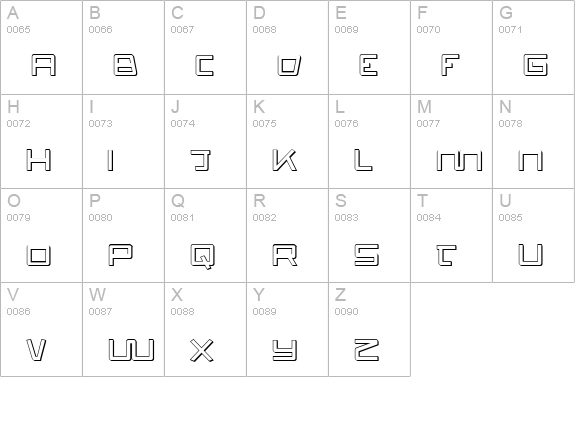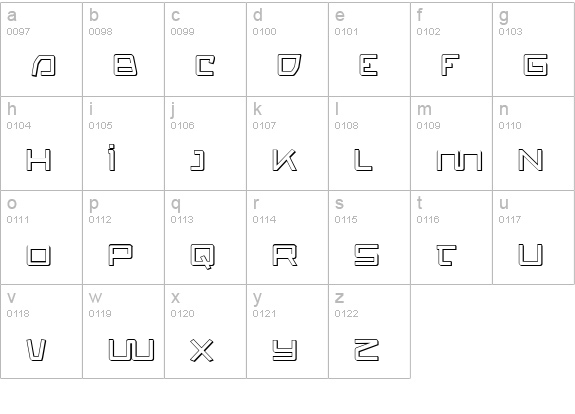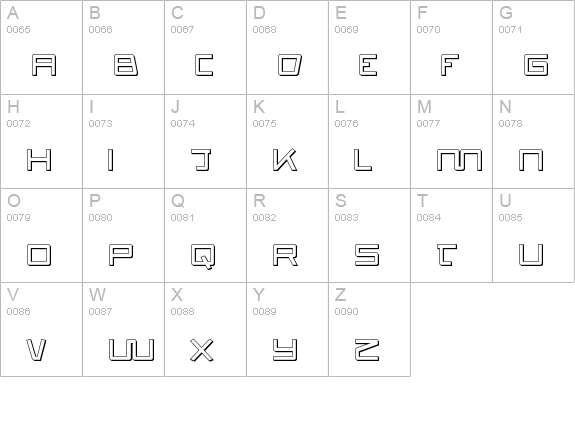
Quasitron 3D Font Details
Introducing the Quasitron 3D font - a captivating display typeface that combines futuristic elements with a bold and dynamic design. This innovative font is perfect for creating eye-catching titles, logos, and other visual projects that demand a modern and edgy aesthetic. The Quasitron 3D font features sleek lines and a three-dimensional effect that adds depth and dimension to your text. What sets Quasitron 3D font apart is its versatility and ability to stand out in a sea of ordinary fonts. Whether you're designing for print or digital, this font is sure to make a statement and leave a lasting impression on your audience. With its unique style and futuristic vibe, Quasitron 3D font is the perfect choice for projects that require a touch of sci-fi flair. Best of all, Quasitron 3D font is available for free download at FontsMarket.com. Now you can enhance your designs with this striking typeface without breaking the bank. Don't miss out on the opportunity to add Quasitron 3D font to your font library and take your creative projects to the next level. Download it today and start exploring the endless possibilities of this cutting-edge font.